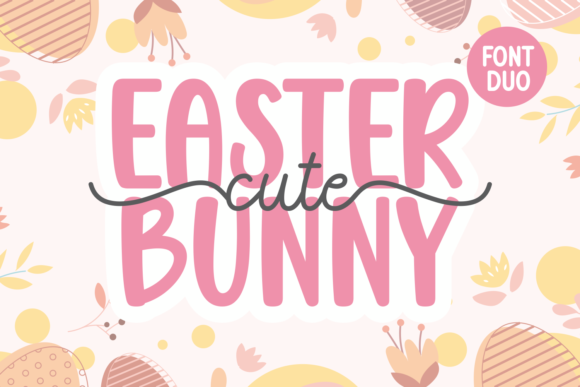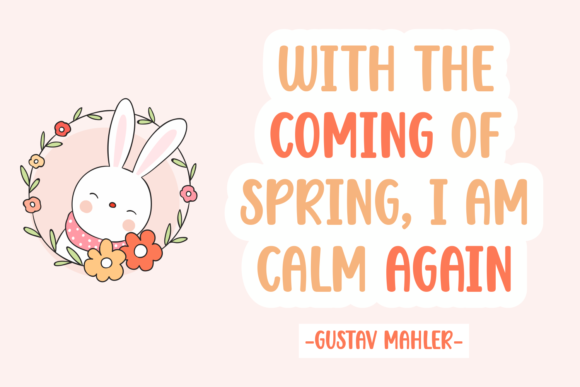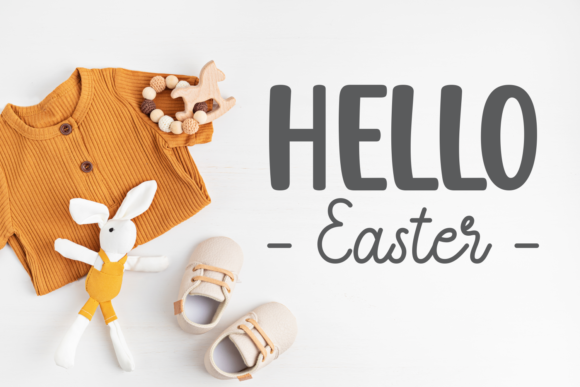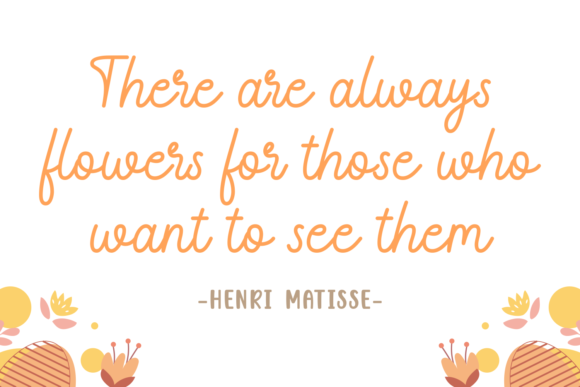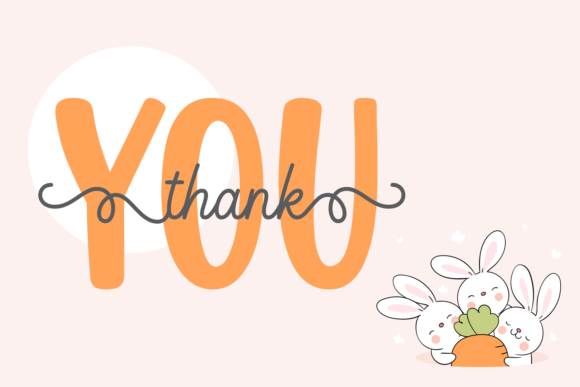
Cute Easter Bunny Font
Cute Easter Bunny is a lovely duo font (script and sans serif). Add it confidently to your projects, and you will love the results.